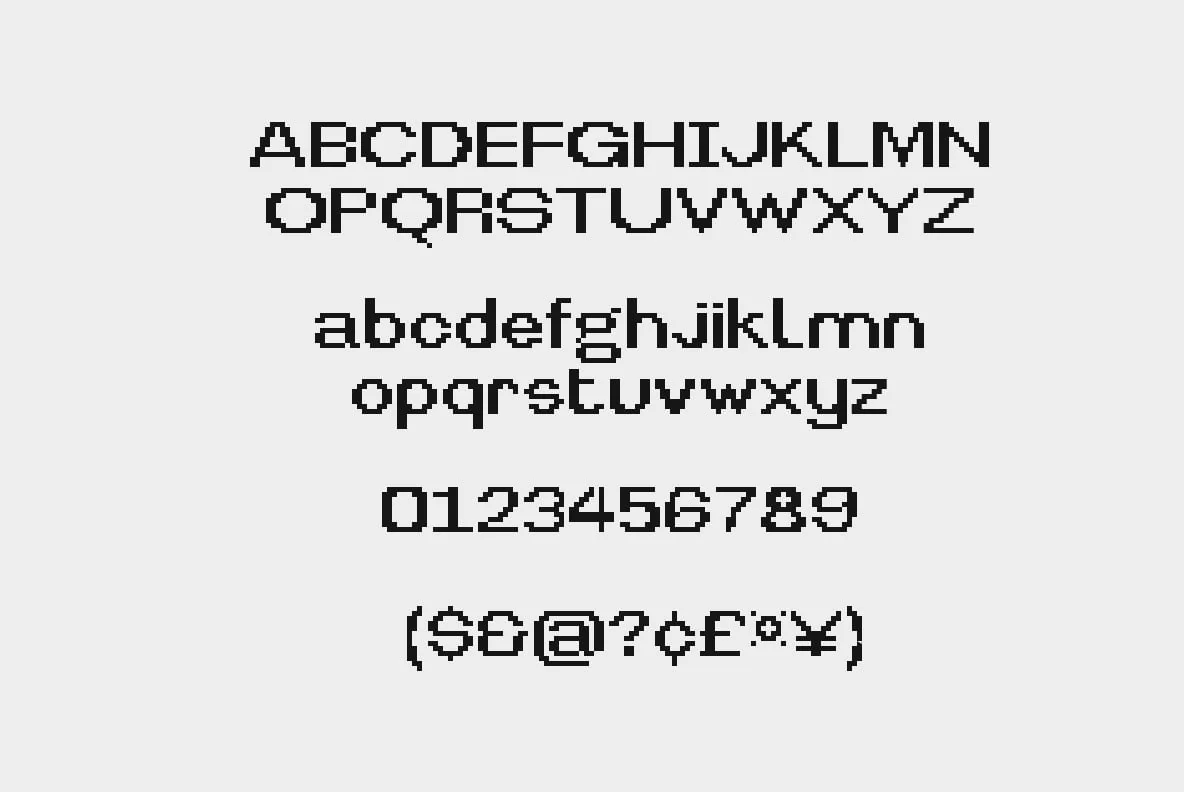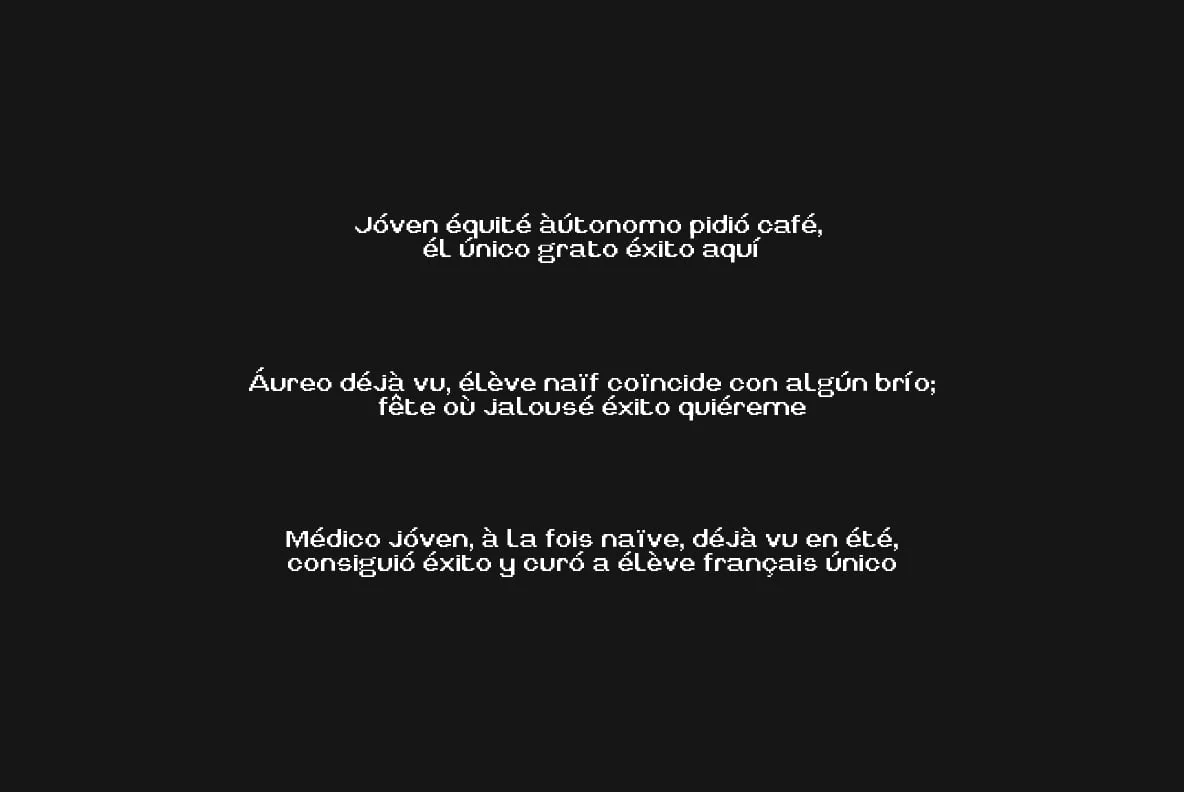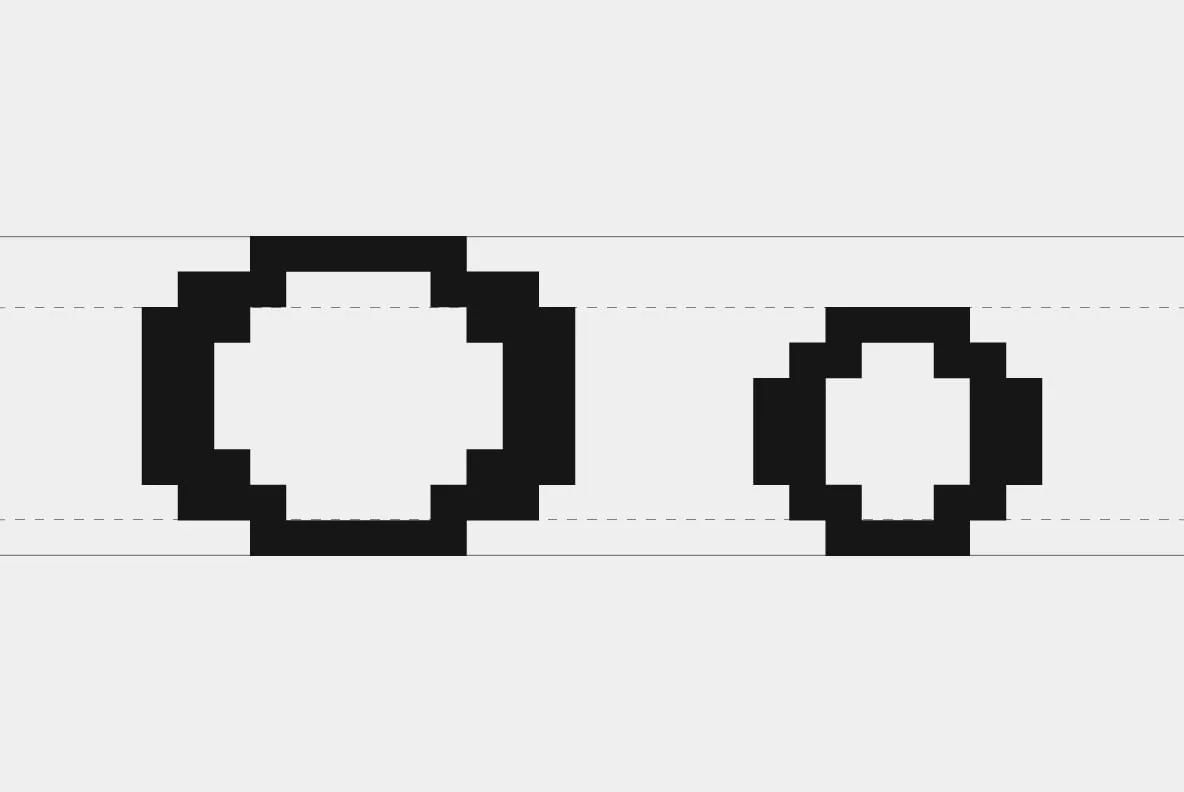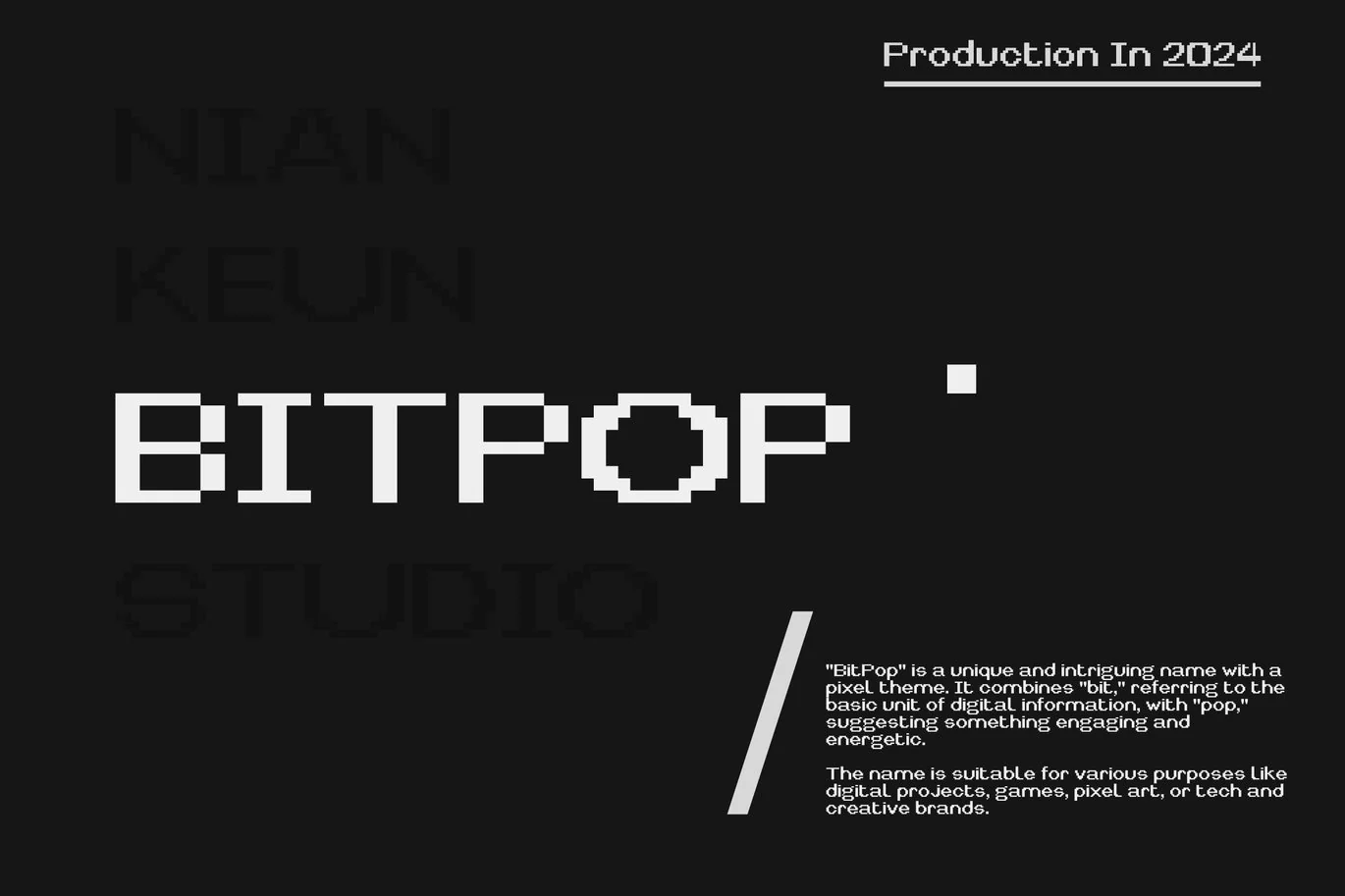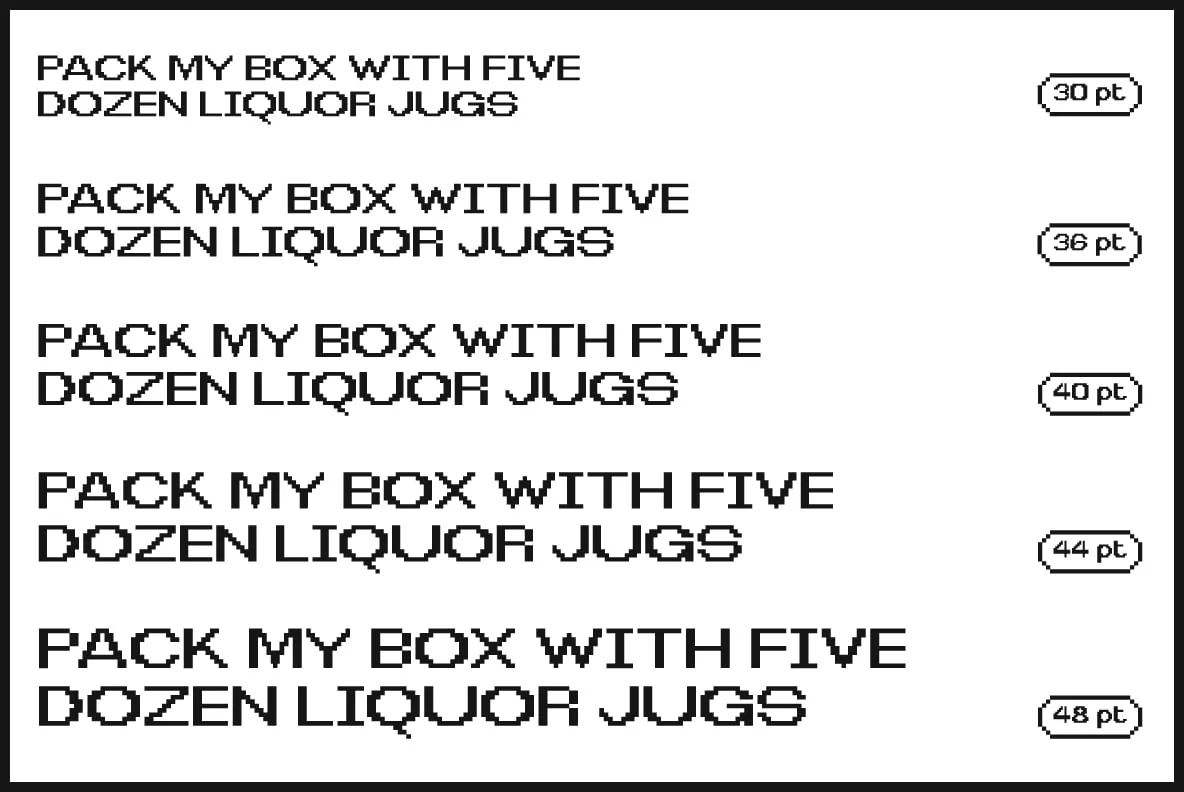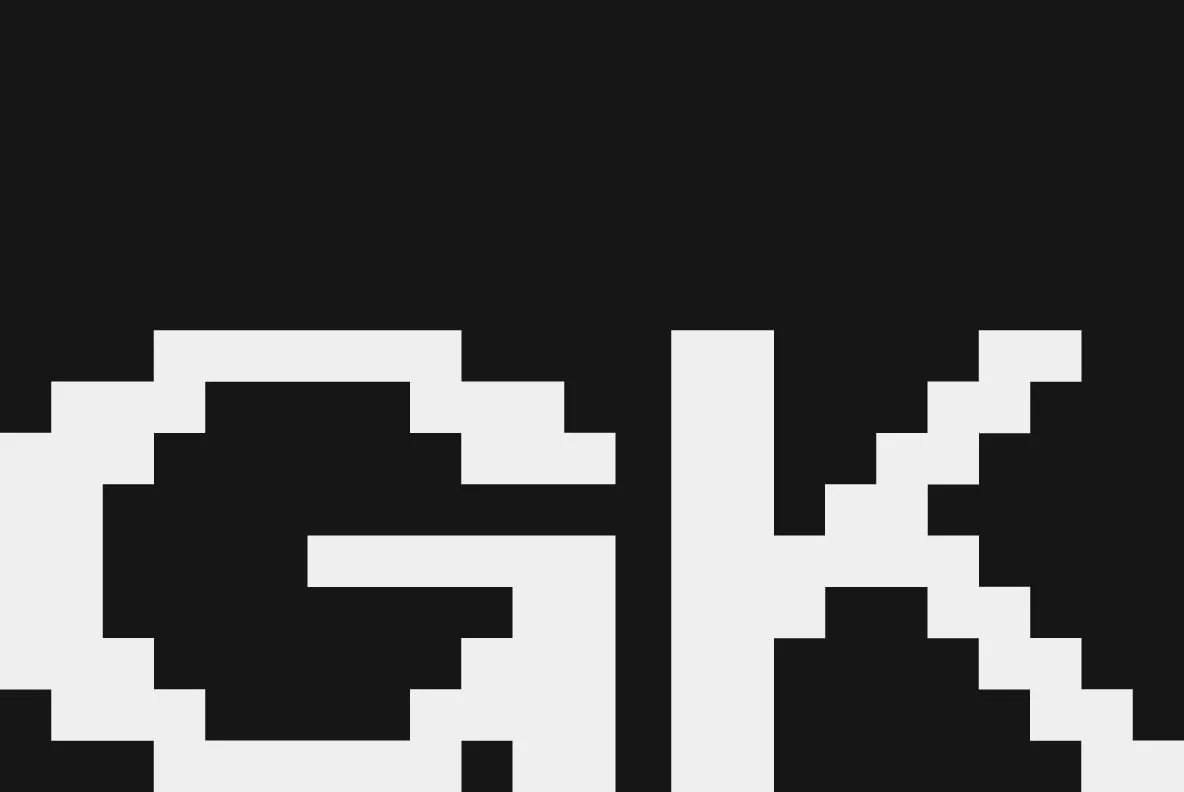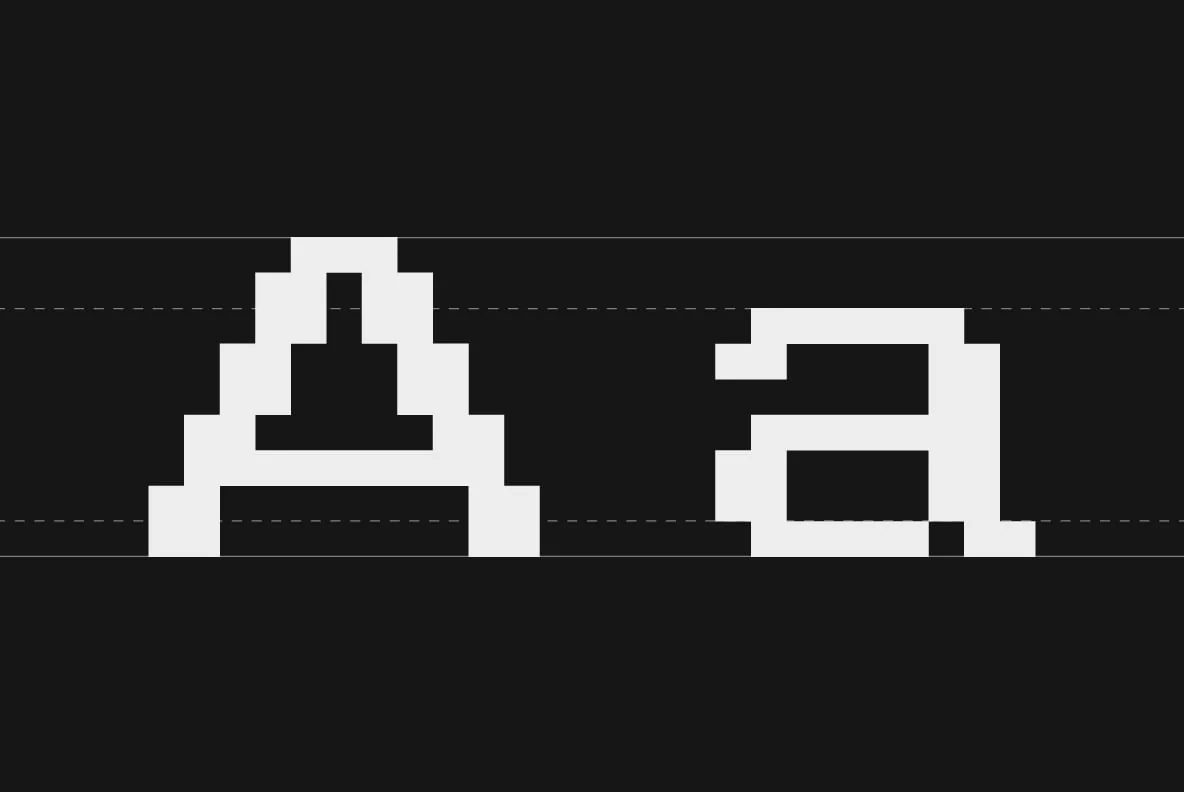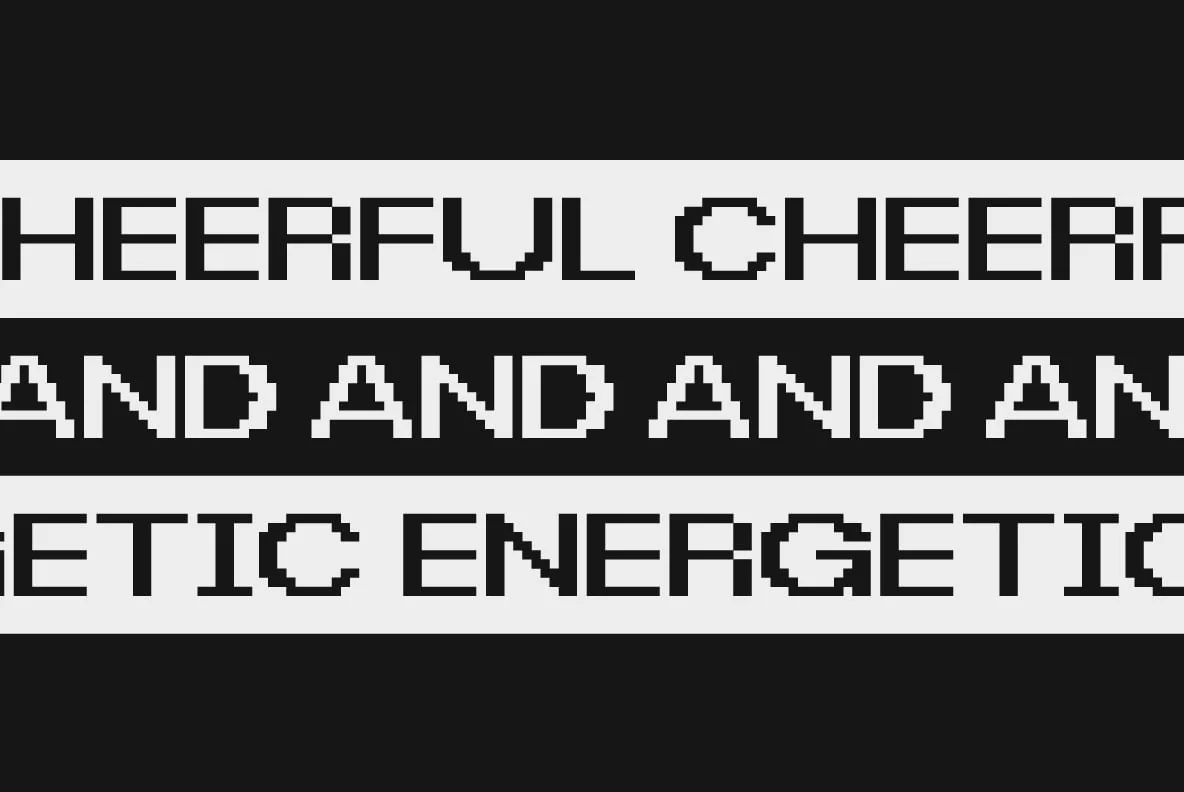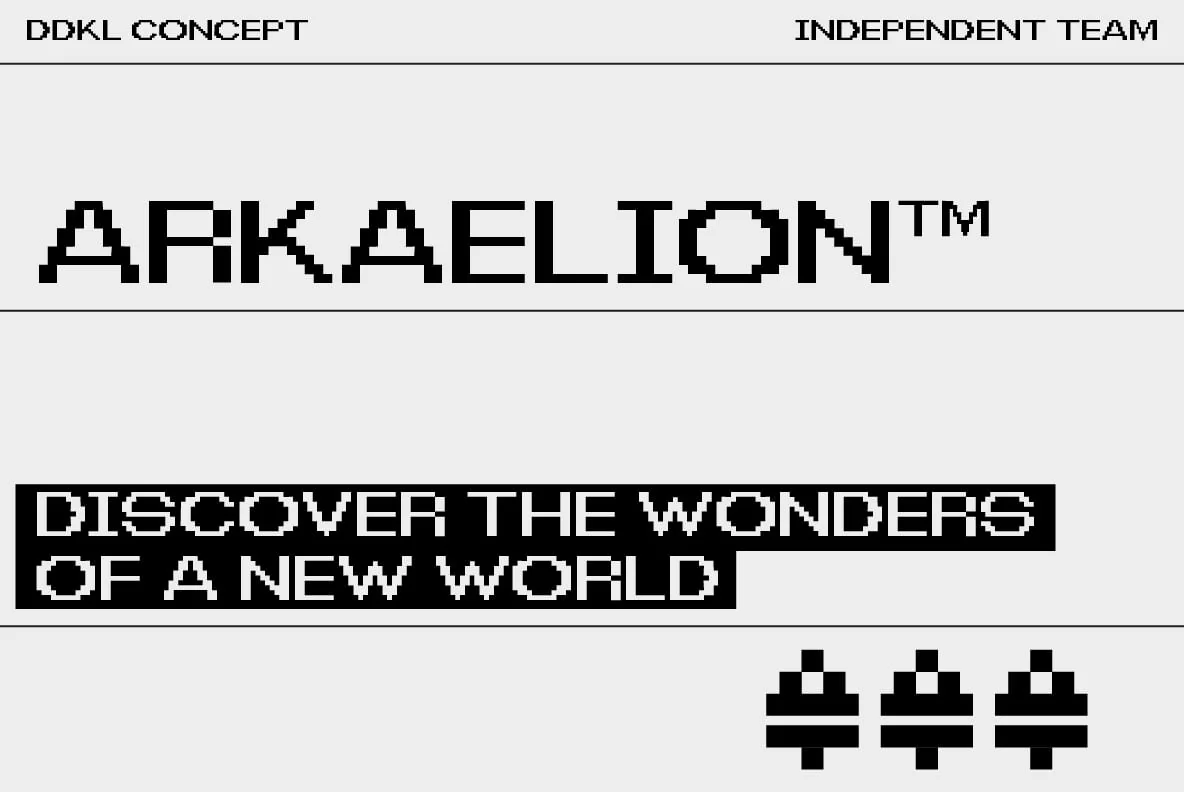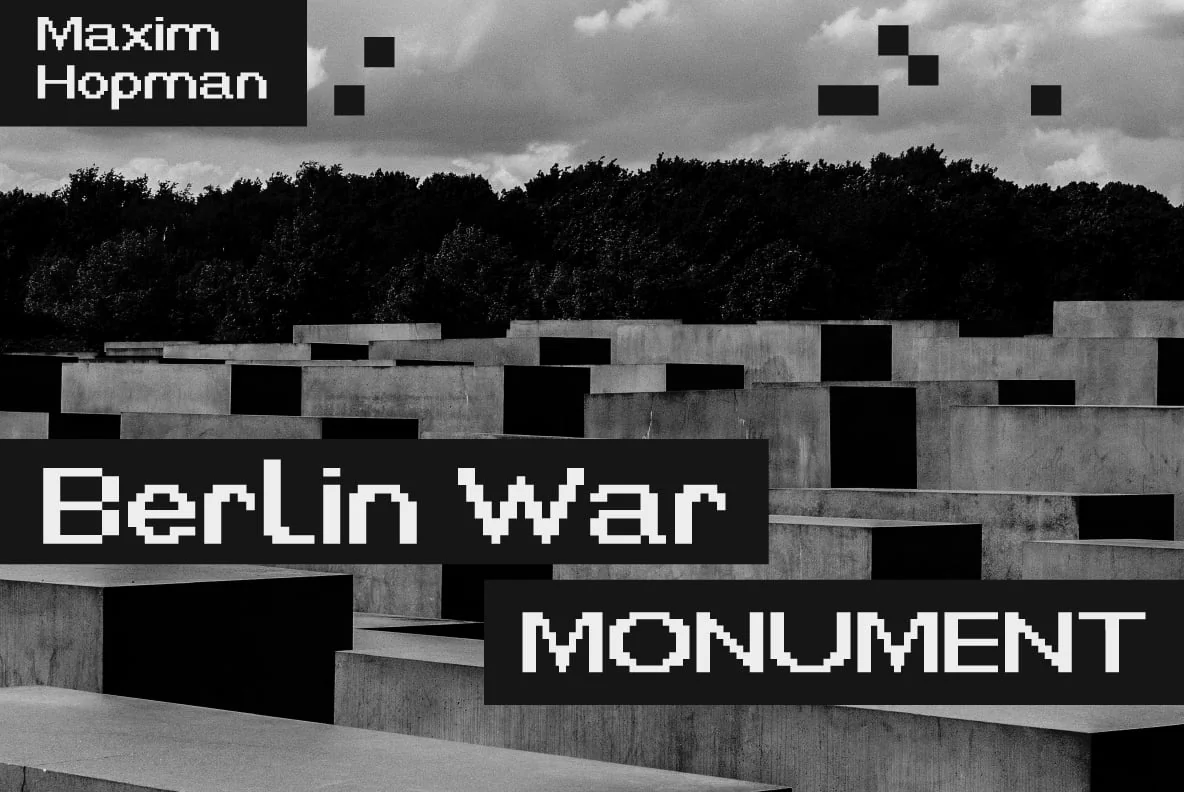
Bitpop – Pixel Font
Bitpop a strikingly unique typeface that brings a dynamic pixel theme to life. Merging the essence of “bit,” the fundamental unit of digital information, with the vibrant energy of “pop,” this font captures the excitement of modern digital design with a pixelated flair. Perfect for projects where energy and creativity are key, BitPop embodies the spirit of contemporary tech and pixel art trends.
Bitpop stands out with its bold pixelated design, offering a fresh and engaging twist on digital typography. Each character is carefully crafted to ensure both visual impact and legibility, making it an ideal choice for a wide range of applications, including digital projects, games, pixel art, and tech-inspired branding. Its distinctive style adds a memorable touch to any design, enhancing both its aesthetic appeal and functionality.
Embrace the fusion of creativity and technology with Bitpop. Its pixelated charm and energetic vibe are perfect for designers seeking to infuse their work with a burst of innovation and style.
Elevate your designs with Bitpop, the typeface that bridges the gap between dynamic pixel art and innovative digital aesthetics. Ideal for projects that require a distinctive and creative edge, BitPop stands as a testament to the lively and engaging world of modern typography.